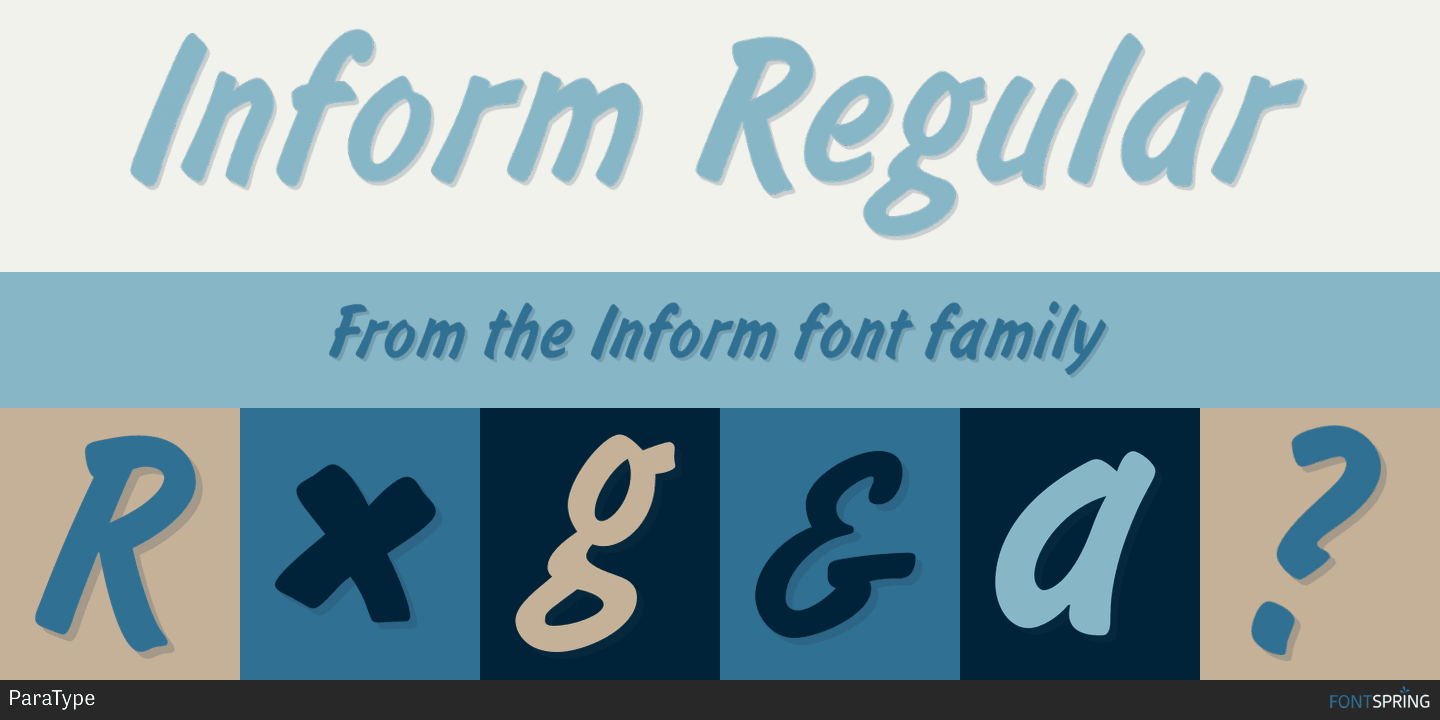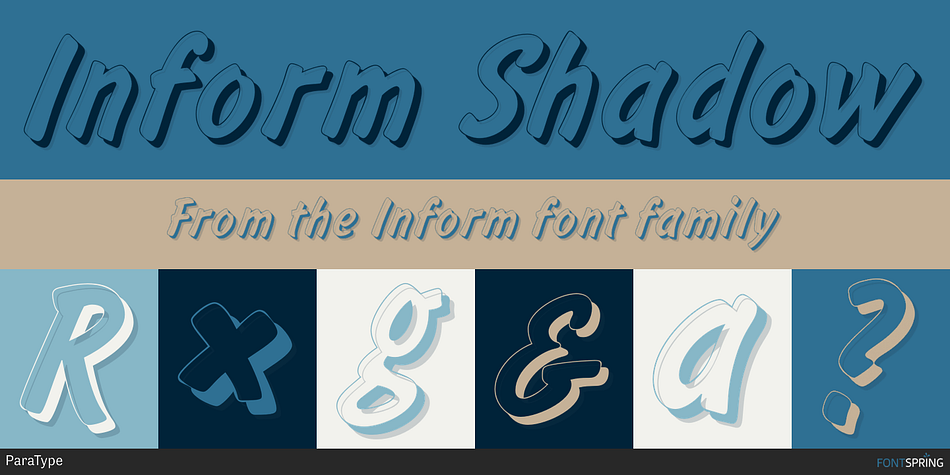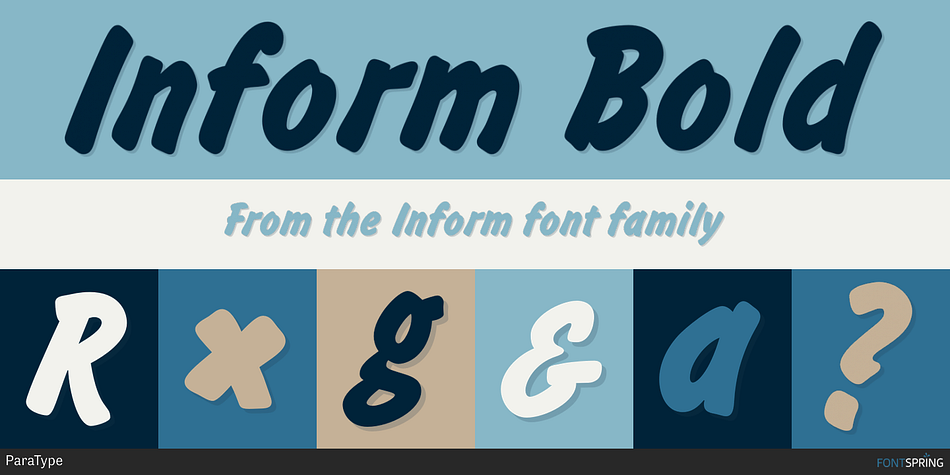
Designed by Gennady Baryshnikov and Alexander Tarbeev, Inform is a comic and hand drawn font family. This typeface has three styles and was published by ParaType.
The typeface was designed by Gennady Baryshnikov. Bold Italic is based on Flash typeface, 1939, by Edwin W. Sharr. Additional styles were developed at ParaType (ParaGraph) in 1992 by Vladimir Yefimov and Alexander Tarbeev. Inspired by non-joining brush calligraphy. For use in advertising and display typography.